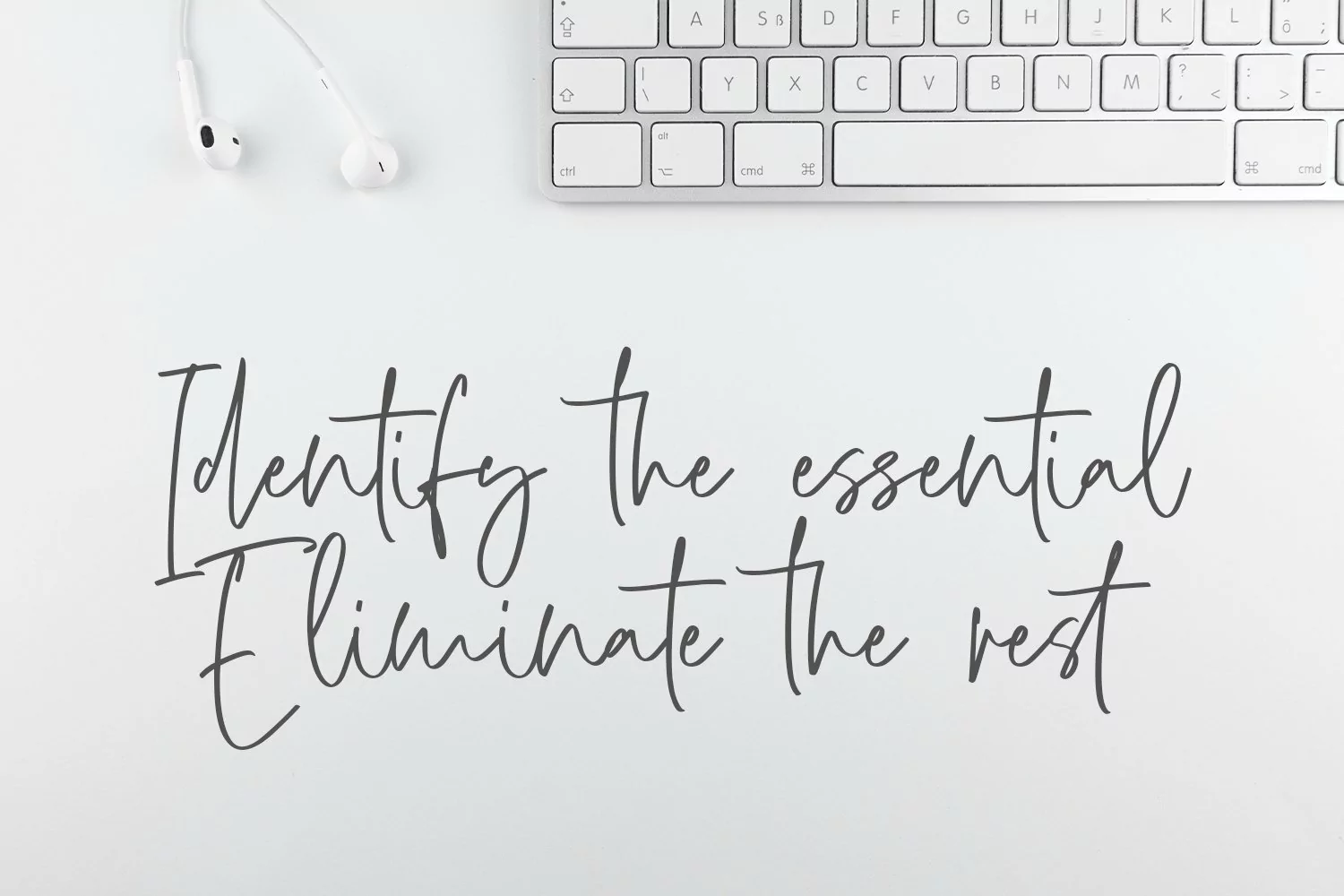
Lillyanstar is a casual handwriting font. It included opentype features Ligature. Lillyanstar support multilingual more than 100+ language. This font is good for logo design, Movie Titles, Books Titles, a short text even a long text letter and good for your secondary text font with sans or serif. Make a stunning work with Lillyanstar font.